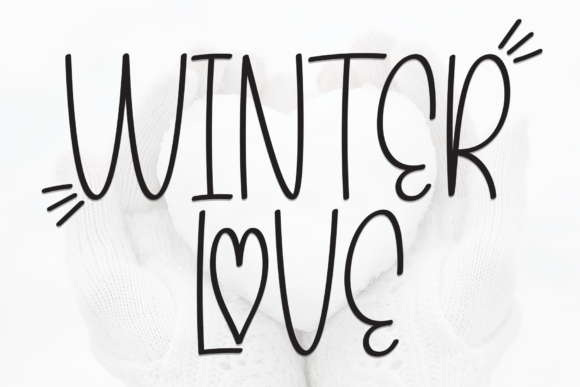
Introducing Winter Love Font, the ultimate choice for adding a touch of elegance and charm to your projects! Created by the talented andikastudio, this script font is a perfect blend of beauty and versatility. Are you ready to discover why Winter Love Font is the best font for wedding videos and beyond?
With its sweet and friendly handwritten style, Winter Love Font captures the essence of romance effortlessly. Each character is carefully crafted to exude warmth and tenderness, making it the ideal companion for any love-inspired design. From wedding invitations to heartfelt quotes, this font will infuse your creations with an irresistible touch of emotion.
What sets Winter Love Font apart is its natural and unique appeal. Unlike other fonts, it effortlessly stands out with its captivating curves and exquisite details. It adds a personalized and handmade feel to your projects, leaving a lasting impression on anyone who sees it. Say goodbye to generic and predictable fonts – Winter Love Font is all about standing out from the crowd!
Unleash your creativity and let your imagination run wild with Winter Love Font. Its versatility knows no bounds, allowing you to explore a vast array of design possibilities. Whether you're creating a romantic wedding video, designing a heartfelt greeting card, or crafting a stunning logo, Winter Love Font will seamlessly adapt to your vision.
Embrace Winter Love Font and let it elevate your designs to new heights. Its captivating charm, versatility, and SEO-friendly nature make it an indispensable asset for any designer or content creator. Download Winter Love Font today and unlock a world of endless possibilities.